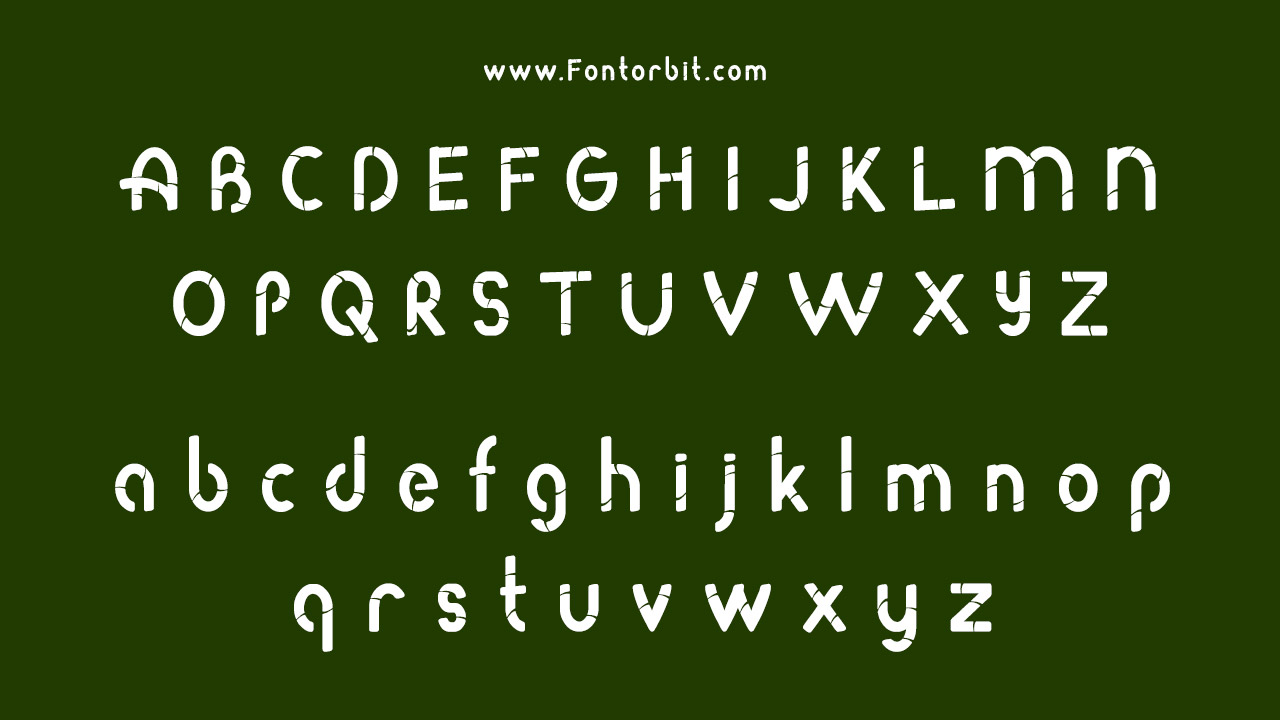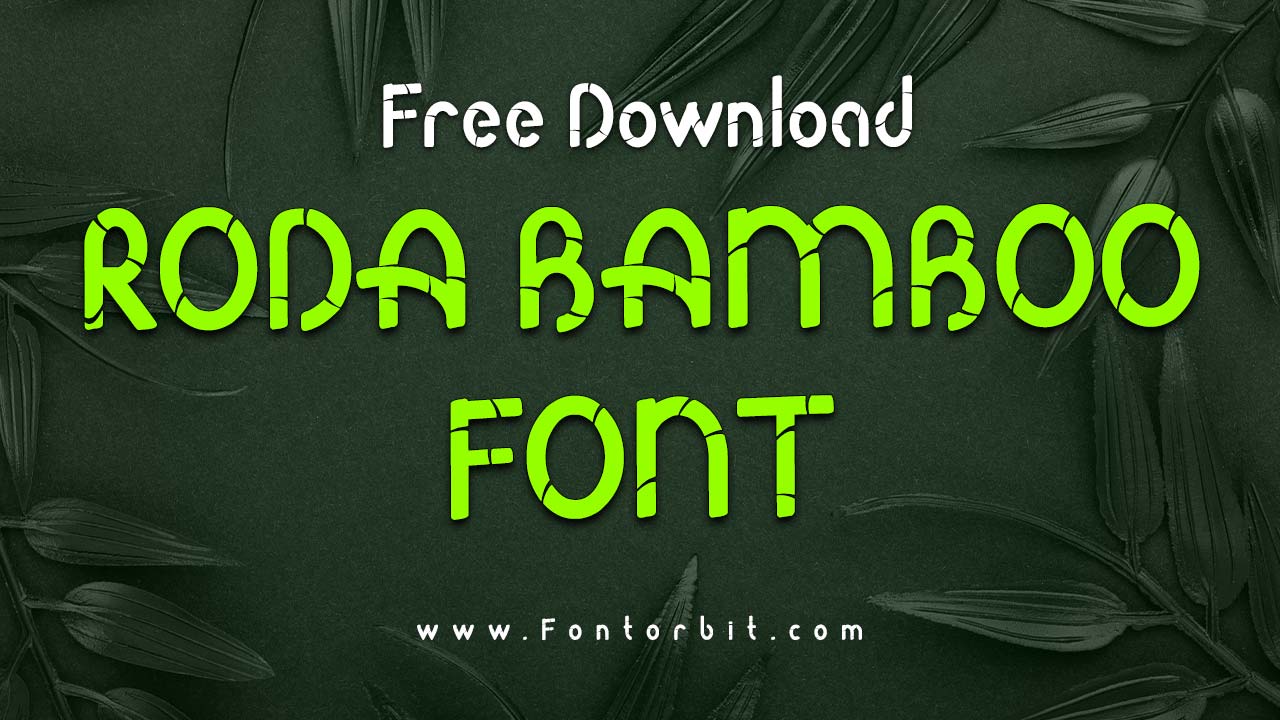
Roda Bamboo is a distinctive and stylish typeface that combines elegance with a touch of whimsy. Created by Serkan Dilemek, this font features a unique and fancy design that adds character and charm to any project.
Roda Bamboo Font Family
Roda Bamboo shines in creating engaging headlines, stylish display text, and other design elements that benefit from a decorative and sophisticated touch. Its elegant style makes it an excellent choice for adding a refined flair to both print and digital media.
Roda Bamboo Font is a versatile tool for various design contexts due to its fancy and decorative design. The font works exceptionally well in both digital and print media, making it a popular choice among designers.
Its elegant and distinctive style enhances the visual appeal of projects, making content more engaging and sophisticated.
2.What Is The Origin Of The Roda Bamboo Font?
Roda Bamboo Font was designed by Serkan Dilemek. It features a unique and fancy design that combines elegance with a decorative touch, making it suitable for a variety of creative applications.
4.What Makes Roda Bamboo Font Unique?
Roda Bamboo Font stands out due to its elegant and decorative design. Its unique style adds a sophisticated touch to design projects, making it a preferred choice for those looking to convey a sense of refinement and creativity.